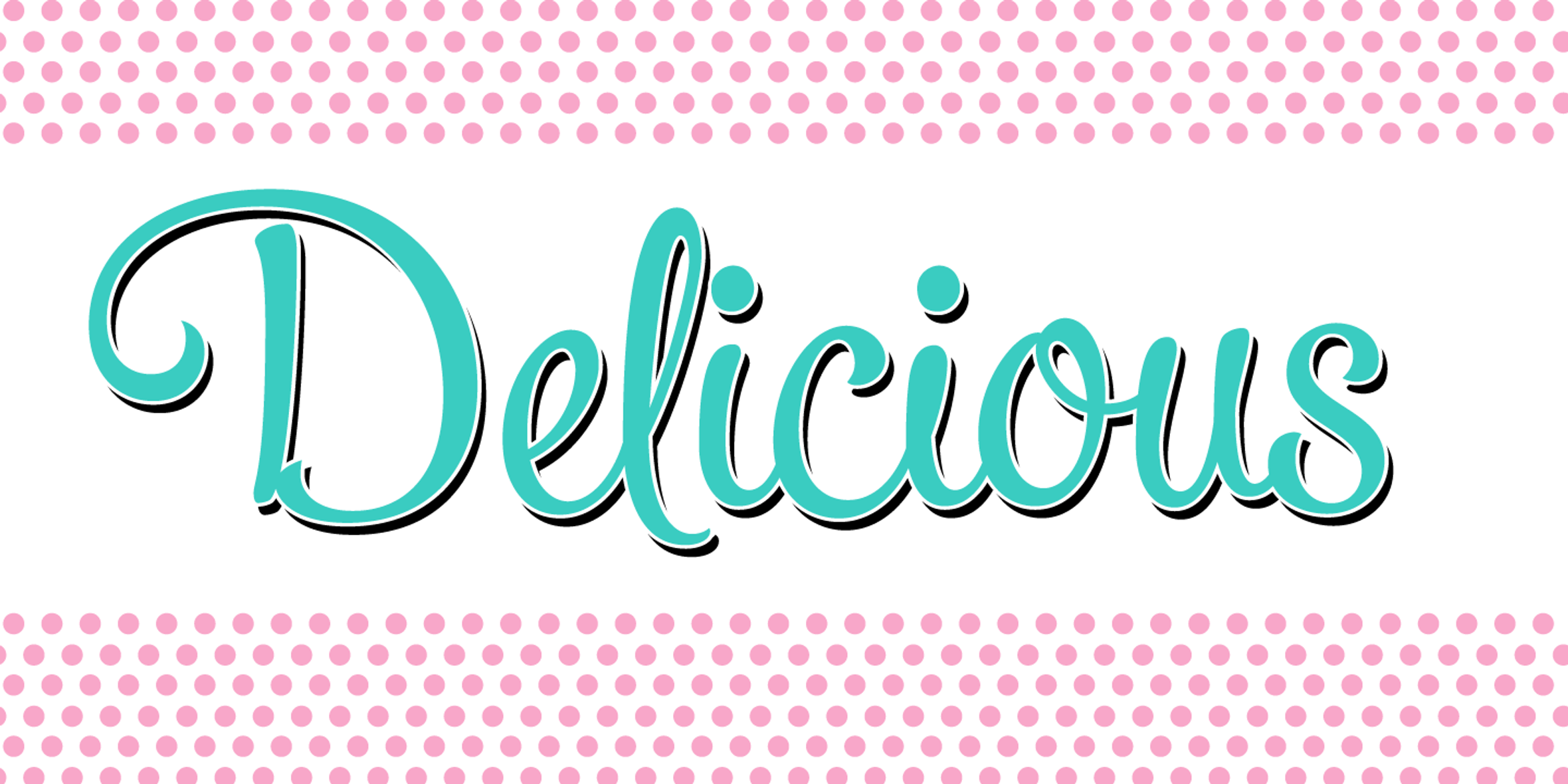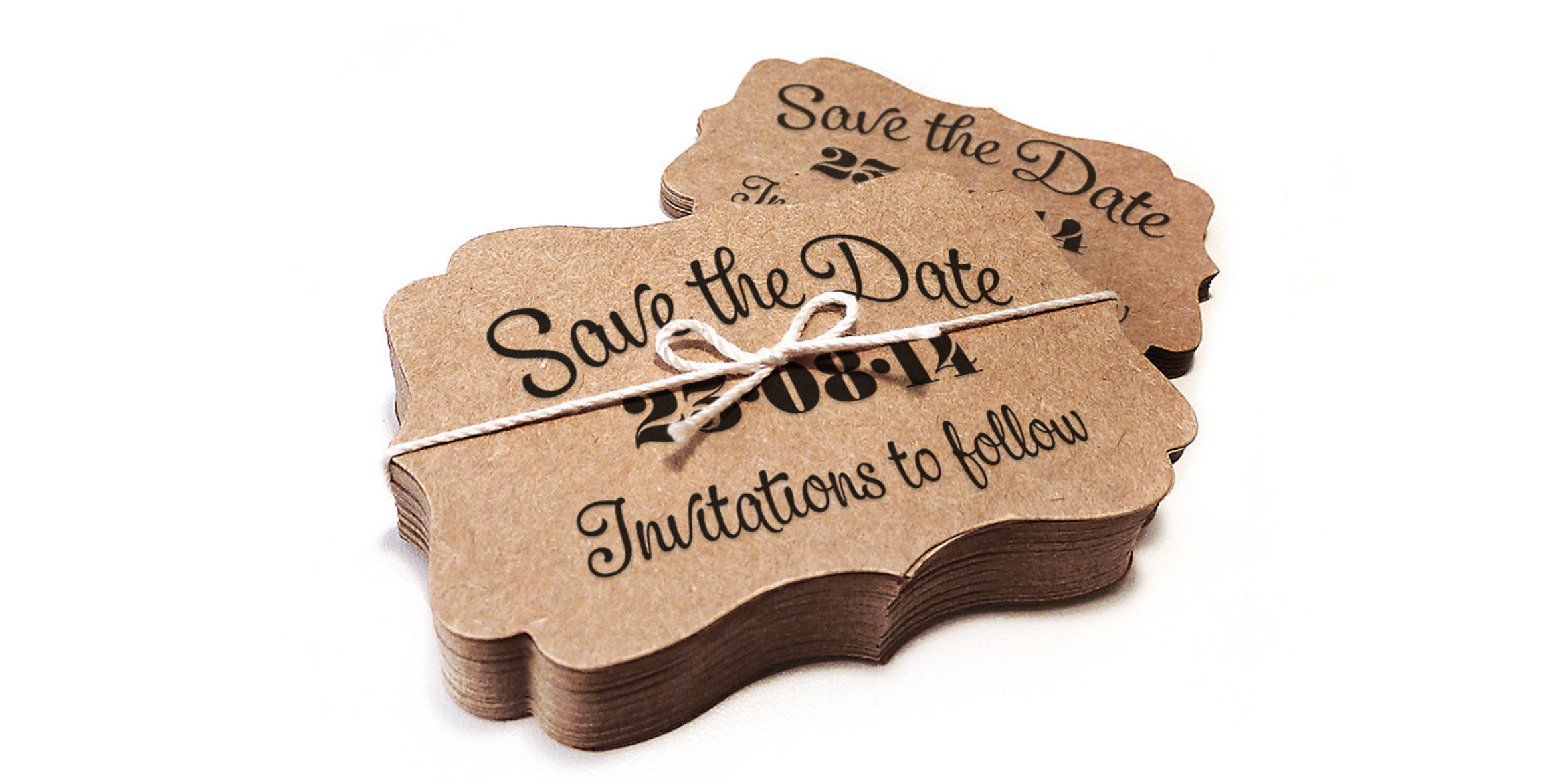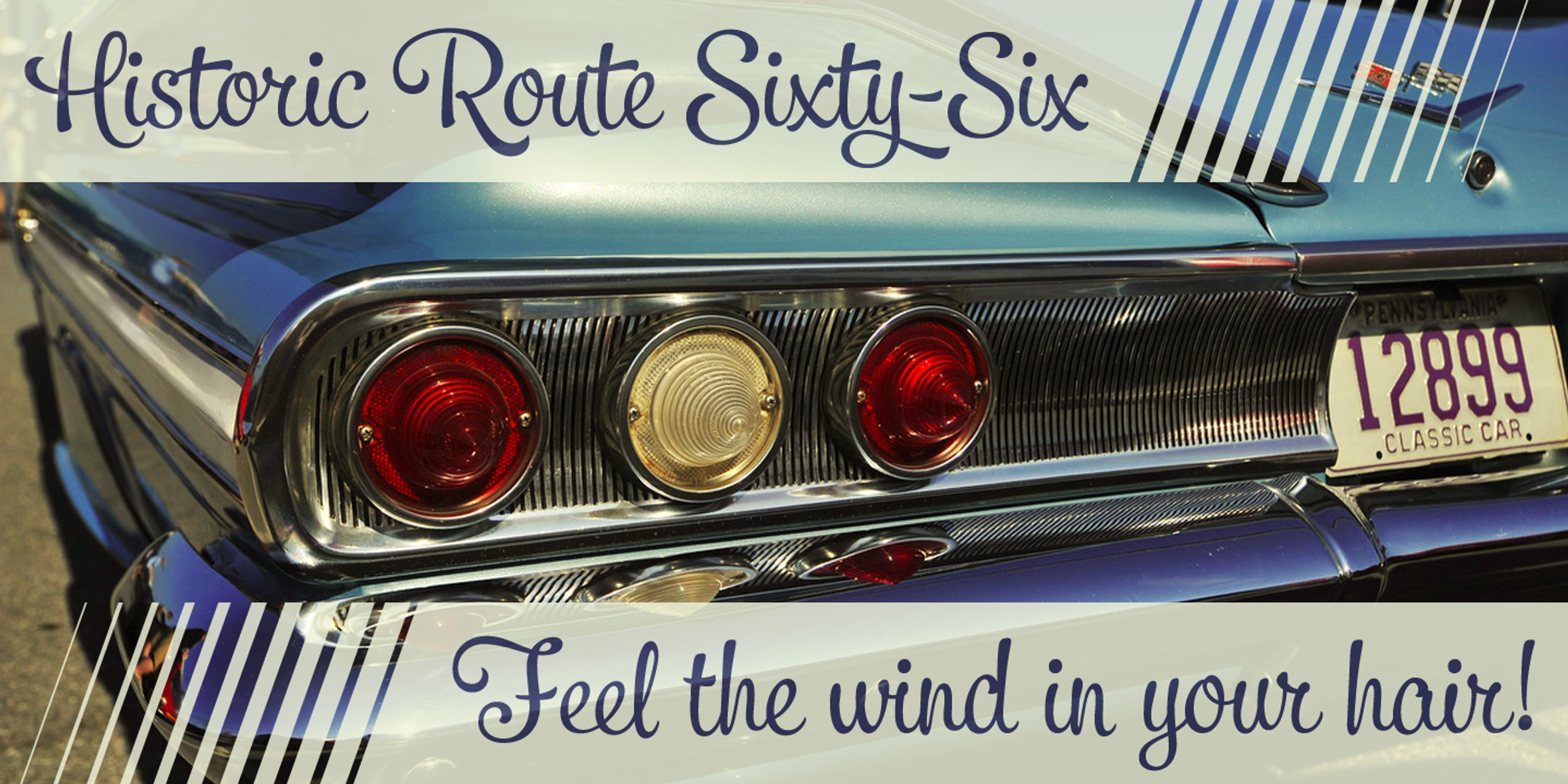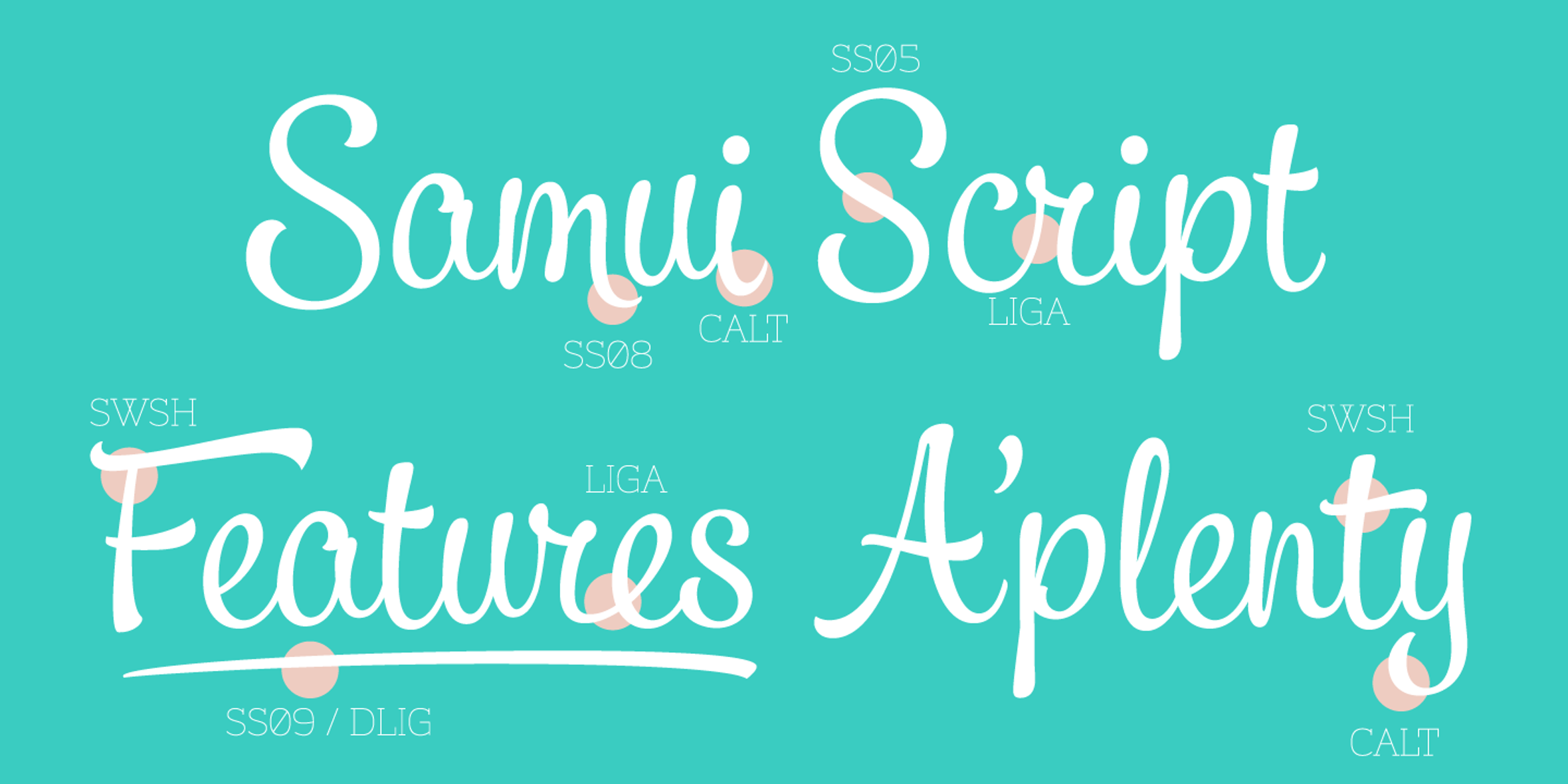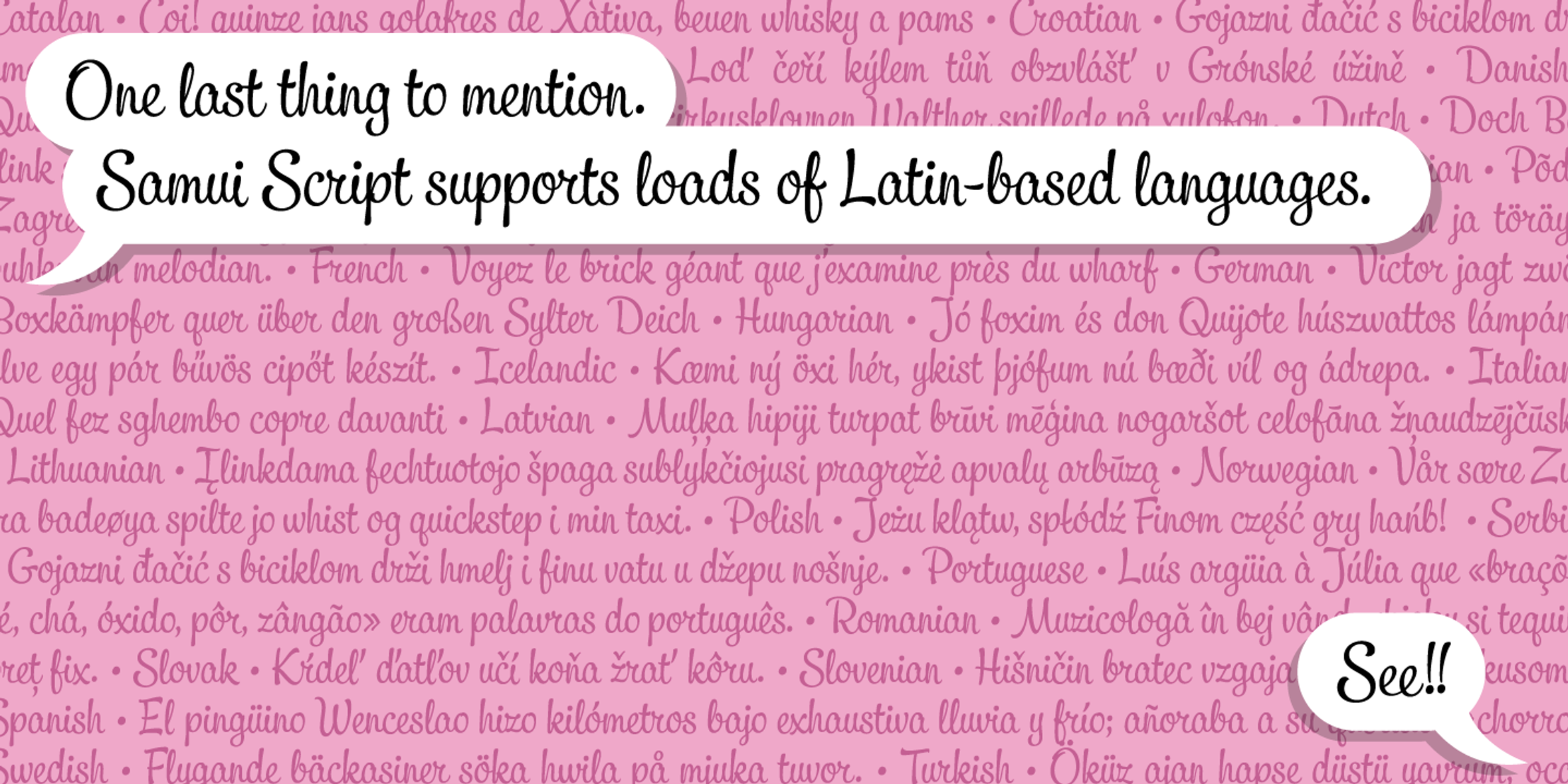
Samui Script Font
Samui Script is a hand-lettering font named for an island Dave Rowland once called home. With a bouncy baseline and exuberant style, it takes cues from mid-20th-century commercial lettering but is not simply a revival. This font can be as modern as you need it to be, or as retro, or somewhere in between. A wealth of features — contextual and stylistic alternates, swashes, and stylistic sets — make for a versatile script destined for books, packaging, magazines, restaurants, posters, and branding.
- Common Ligatures
- Discretionary Ligatures
- Fractions
- Old Style Numerals
- Stylistic Alternates
- Swashes